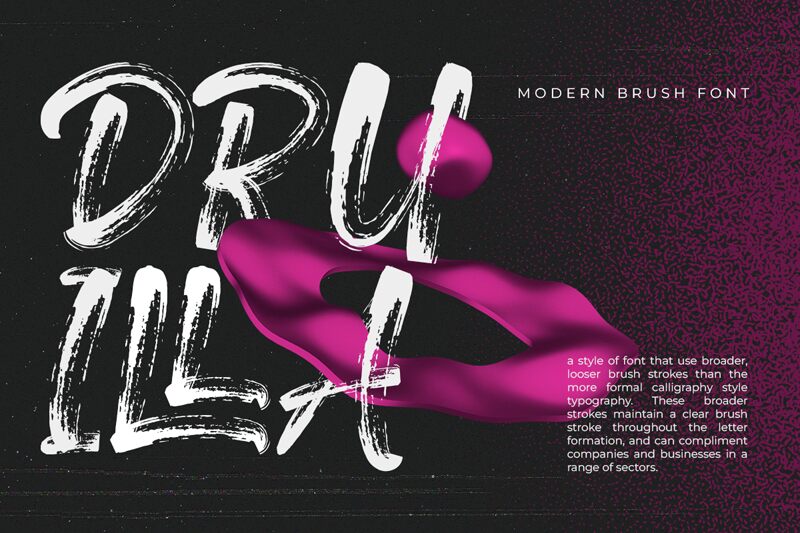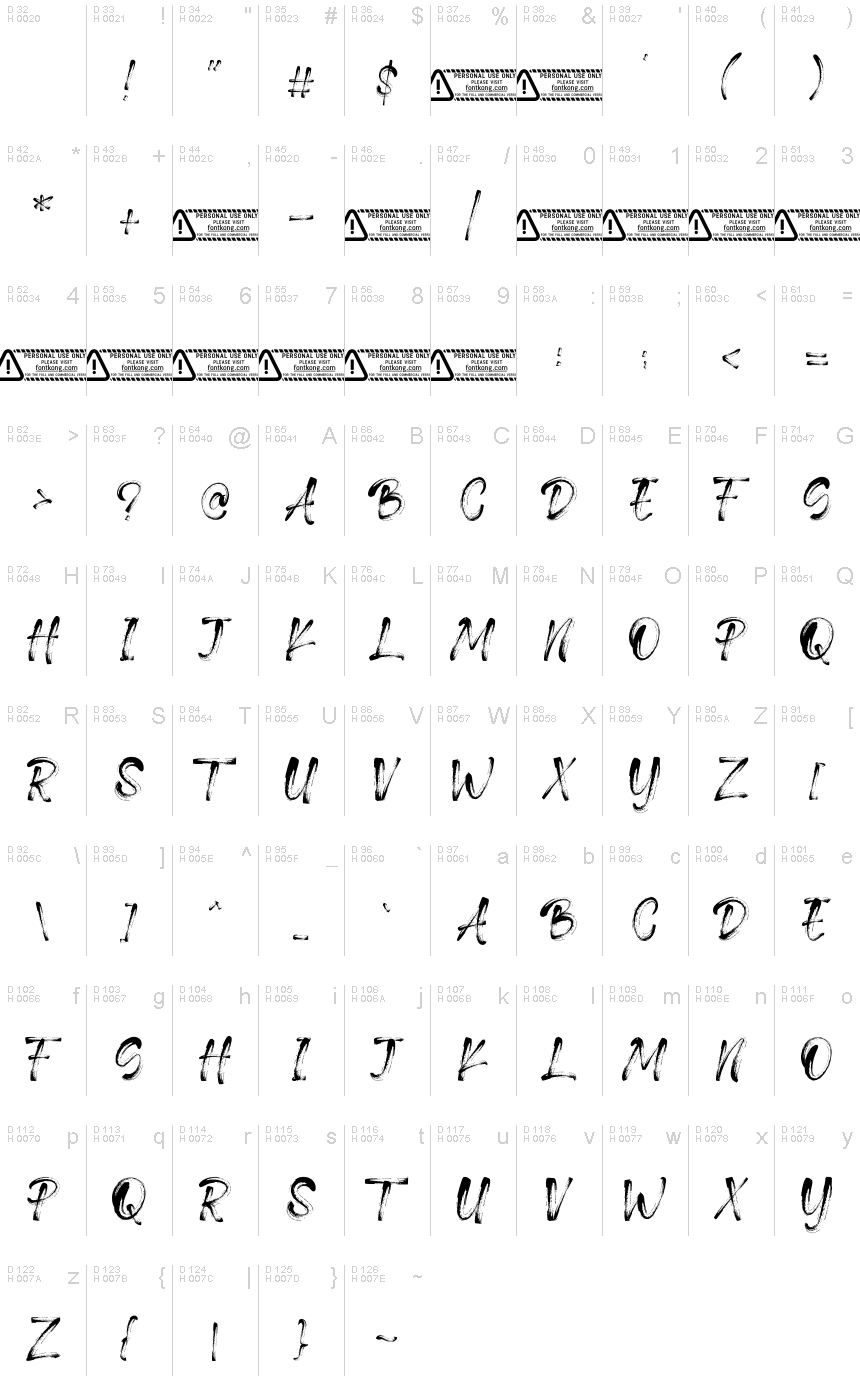
Druilla
Druilla, a brush-style font crafted by Kong Font, captivates with its raw, expressive strokes. This dynamic typeface exudes a sense of organic movement, blending bold, gestural lines with a touch of refined elegance. Druilla's unique character flourishes evoke the fluid, handcrafted essence of calligraphy, infusing any design with an artisanal, personal touch.
Versatile and visually striking, Druilla lends itself well to a variety of applications, from eye-catching headlines and impactful logo designs to dynamic branding and editorial pieces. Its distinct personality makes it an excellent choice for projects seeking to convey a sense of authenticity, creativity, and artistic flair, whether in the realm of fashion, lifestyle, or creative industries.